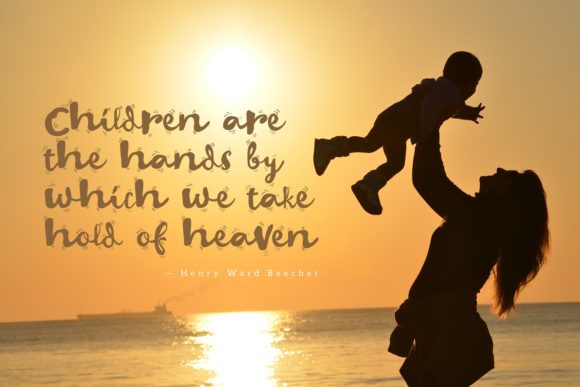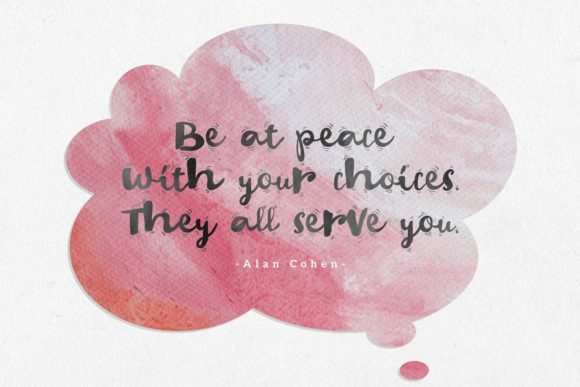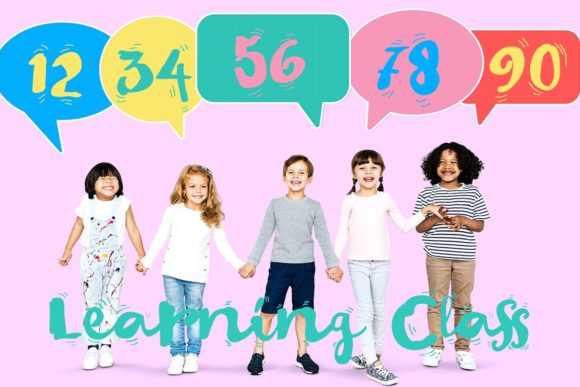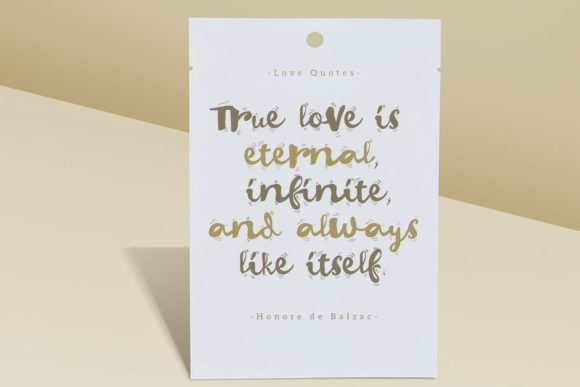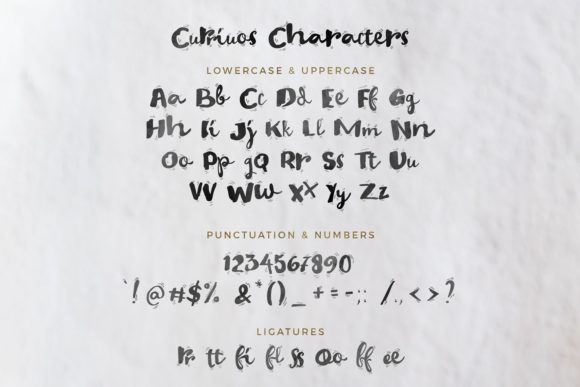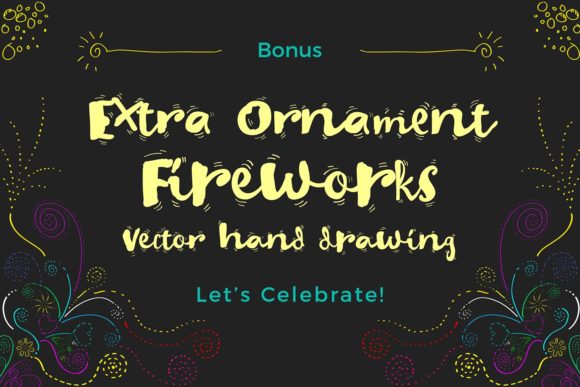
Currant Font
About Currant Font
Currant is a sweet and unique handwritten font. Its natural style makes it incredibly fitting to a large pool of designs. The only limit is your imagination!